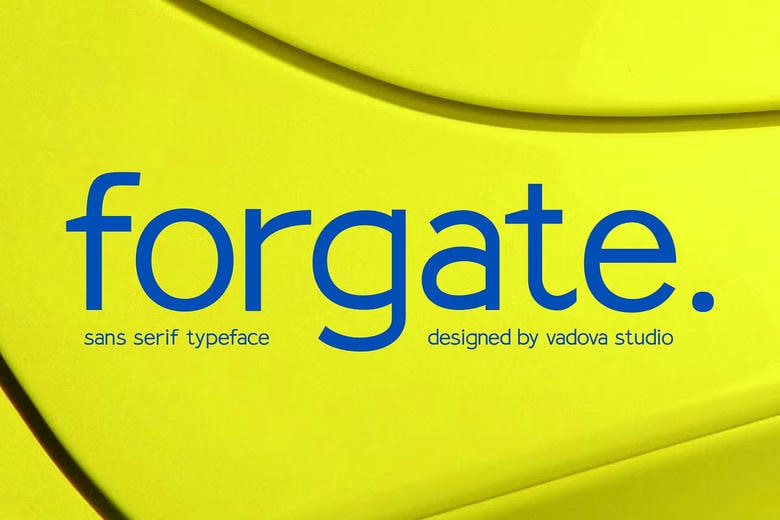
Forgate Font
Forgate is a contemporary, neat and clean sans serif typeface that was designed to be precise, balanced and functional in grace. Basing his visual language on the principles of geometric design and adding a touch of humanist warmth to it, Forgate provides a visual language that is easy to approach to, and extremely professional. It is designed to meet the demands of the designer who needs versatility, clarity and contemporary style in a variety of uses in both corporate and creative, print and digital.
You can be working on an innovative technology brand, corporate identity system, clean package, or a smooth interface and Forgate is a typography solution that will have the quiet confidence and modern sophistication. Its versatile character makes it fit perfectly in both the loud and subdued design spaces giving the power to the designers with a timeless but progressive typography.
Forgate Sans Serif Font